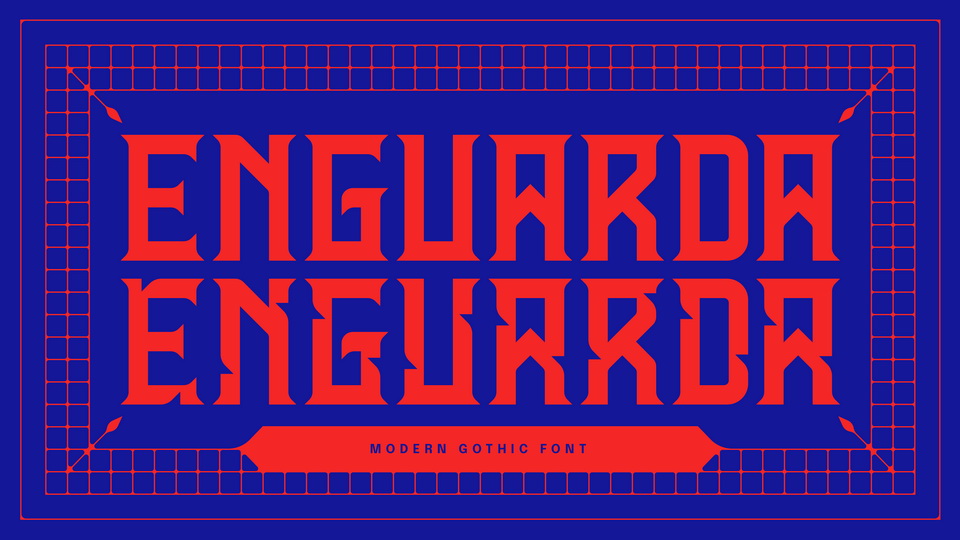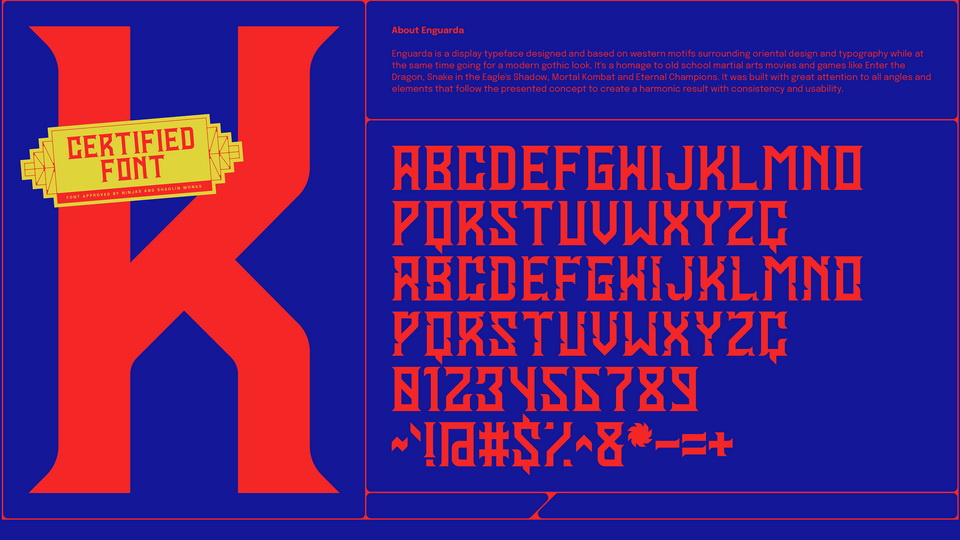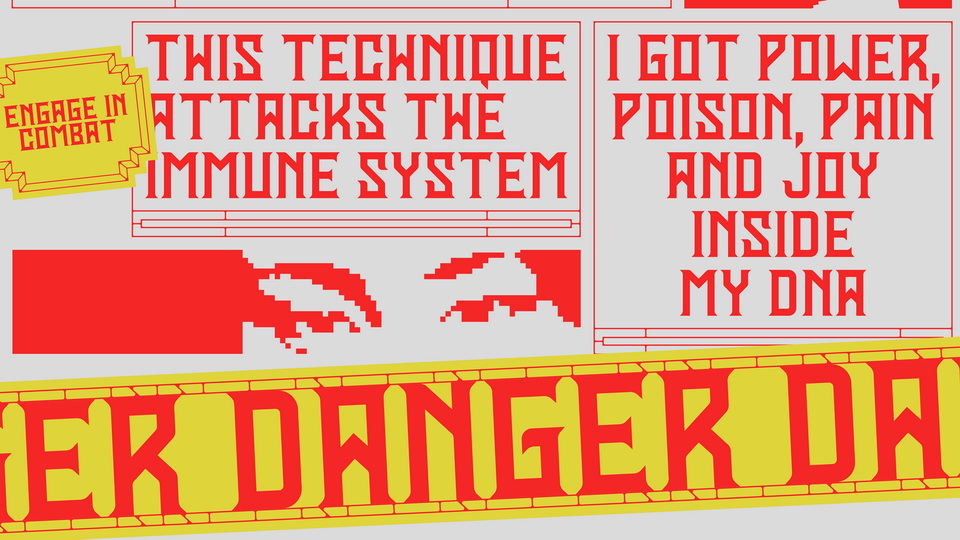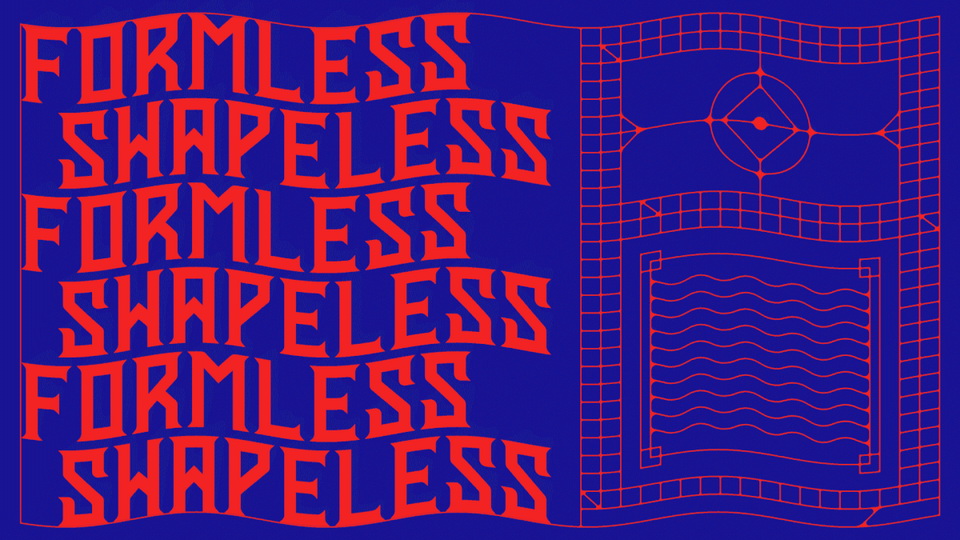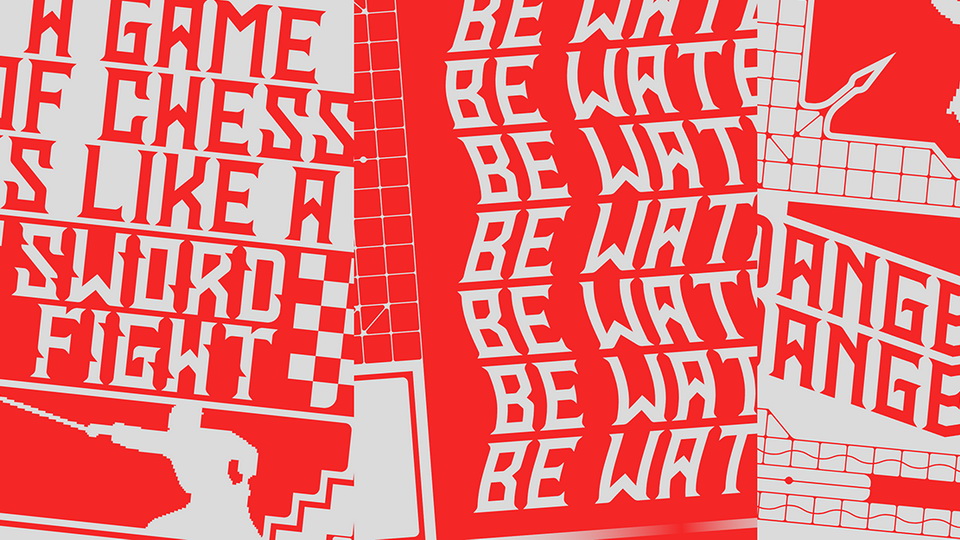
Enguarda is a display typeface designed and based on the western motifs surrounding oriental design and typography while in same time going for a modern gothic look. It’s a homage to old school martial arts movies and games.
Enguarda was built with great attention to all angles and elements that follow the presented concept to create a harmonic result with consistency and usability.